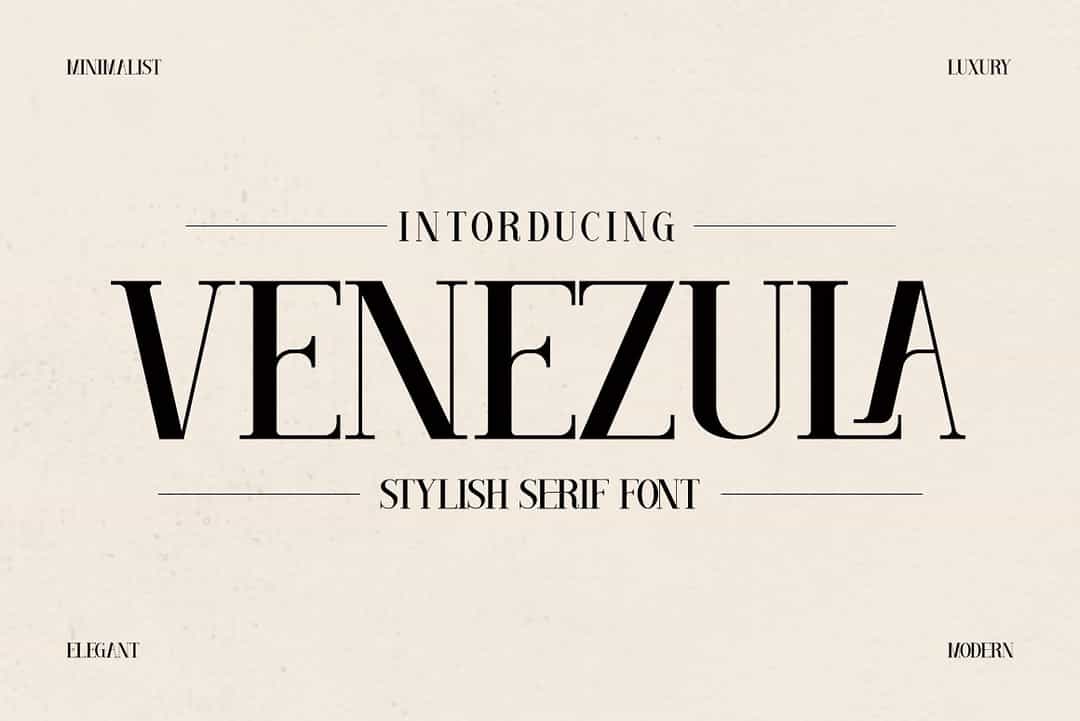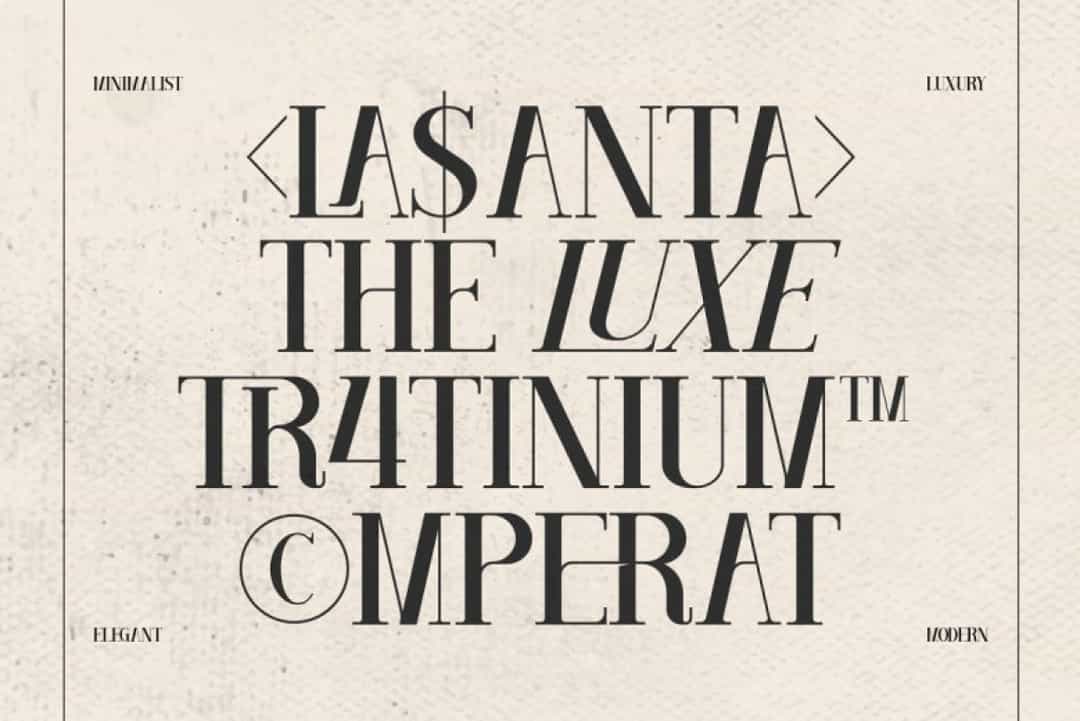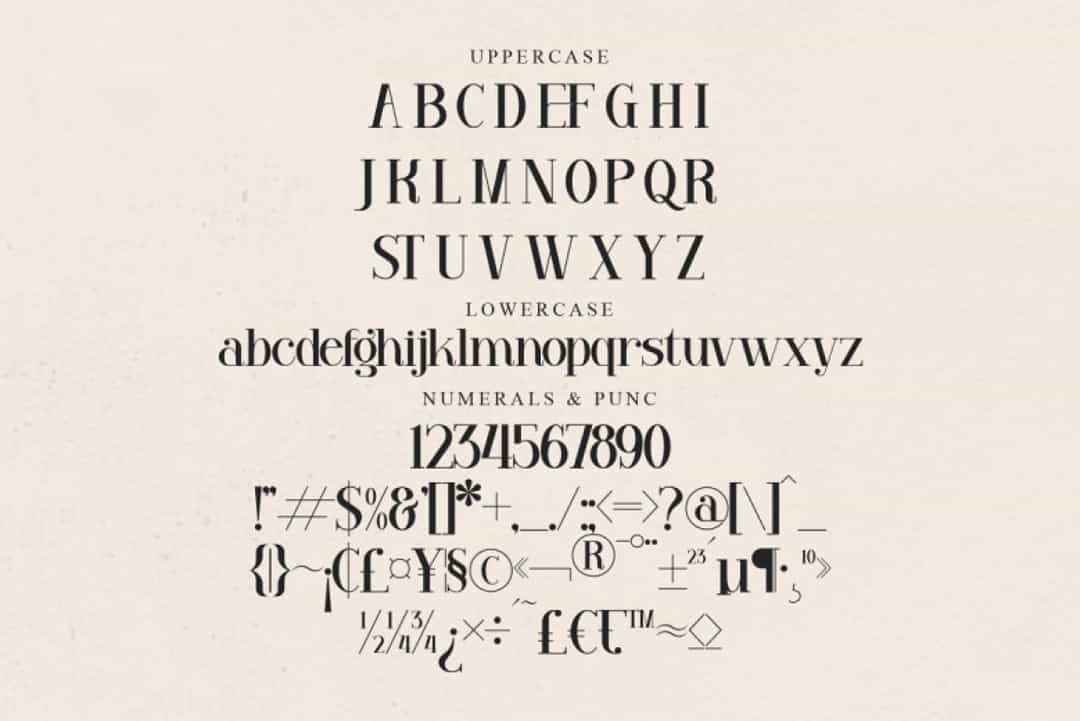
Discover Venezula Font, part of the Serif collection—a versatile and unique font perfect for adding a personal touch to your projects. Download it for free and enjoy crafting designs with style, from invitations to social media posts. This font is available exclusively for personal use, giving you the freedom to create without limits. Unlock your creativity with Venezula Font today!
Storytype’s VENEZULA Typeface, a contemporary serif font with a distinct style and modern appearance, makes an outstanding statement in any setting – logo design, movie, book titles, fashion magazines, clothing brands, clothing lines, lettering, quotes and much more can benefit from its use.